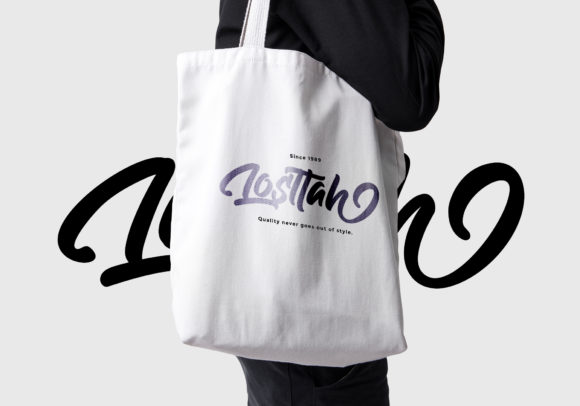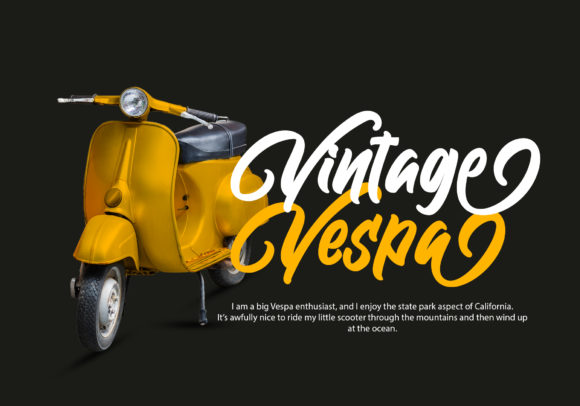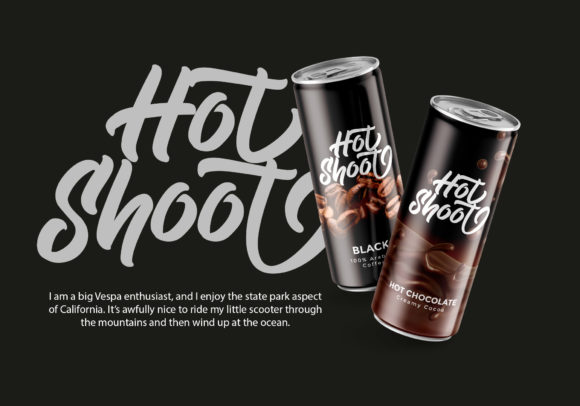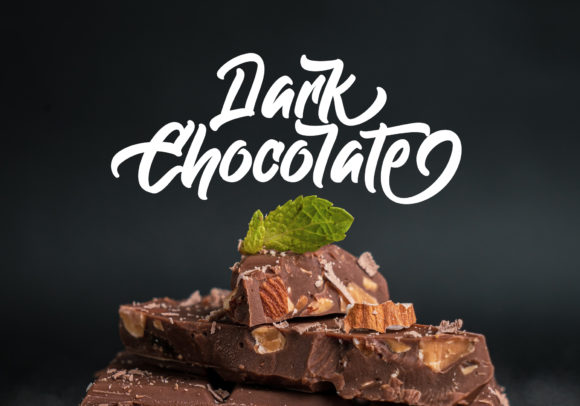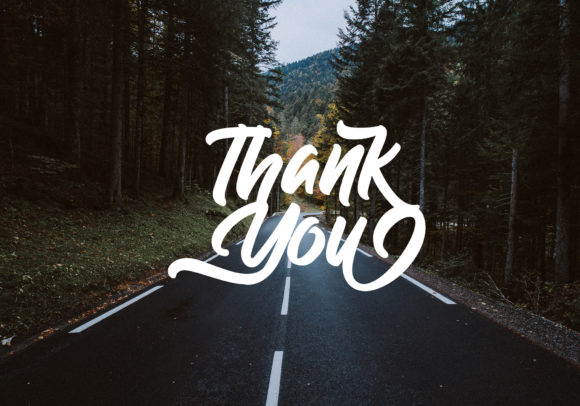
Introduction to Rolling Bold Font
Have you ever stared at a blank canvas, waiting for inspiration to strike, only to have it hit you like a ton of bricks as you’re sipping your morning coffee? That’s exactly what happened to many designers when they laid eyes on the Rolling Bold Font. This modern script font is more than just a pretty face – it’s a game-changer for designers looking to elevate their creative projects.
As a valuable design resource, the Rolling Bold Font is designed to make your life easier and save you time in the process. With its high-quality features and user-friendly interface, you can focus on what matters most – bringing your vision to life. Whether you’re working on a logo, poster, or packaging design, this font is sure to make your work stand out.
Key Features of Rolling Bold Font
- High-quality design resource ideal for creative projects requiring a modern and stylish look.
- Designed to be versatile, Rolling Bold Font is suitable for a wide range of creative projects, from logos and branding to packaging and advertising.
Honest Review: Rolling Bold Font
As a designer, I’m always on the lookout for high-quality fonts to add some flair to my creative projects. The Rolling Bold Font caught my eye with its unique design and transparent background, making it a great addition to any design resource.
I was impressed with the quality of the font, and it’s perfect for titles, headings, or even creative text overlays. The font is available for free download, which is a huge plus for designers on a budget.
- Unique design that adds a touch of creativity to any project
- Transparent background makes it easy to use in various design contexts
- High-quality font that’s perfect for titles, headings, or creative text overlays
- May not be suitable for body text due to its bold and attention-grabbing design
- Not as versatile as other fonts in terms of font sizes and styles
Overall, I’m impressed with the Rolling Bold Font and would recommend it to designers looking for a unique and high-quality font for their creative projects.
To get the most out of the Rolling Bold Font, use it in conjunction with other design elements, such as images and graphics. This will add depth and visual interest to your design. Additionally, experiment with different font sizes and colors to create a unique and eye-catching look.
Common Use Cases for Rolling Bold Font
The Rolling Bold Font is ideal for a variety of use cases, including presentations, reports, and creative projects. Its high quality and versatility make it a great choice for designers and non-designers alike. Whether you’re working on a personal project or a professional design, the Rolling Bold Font is a valuable design resource that can help you achieve your goals.